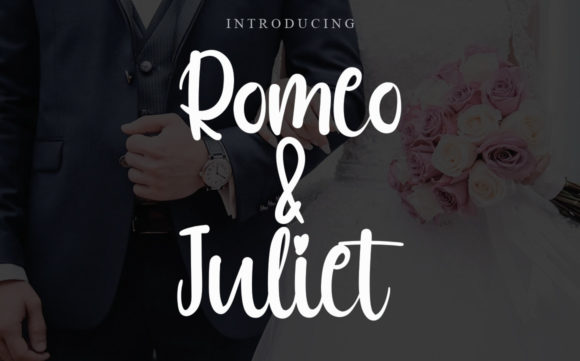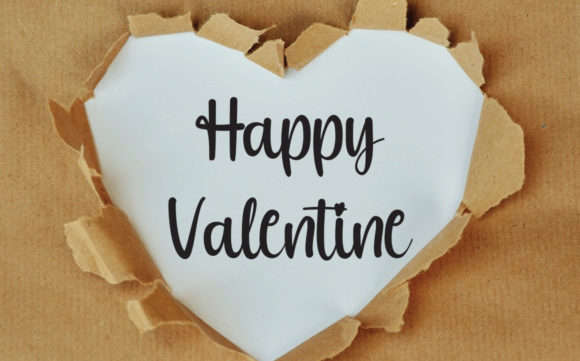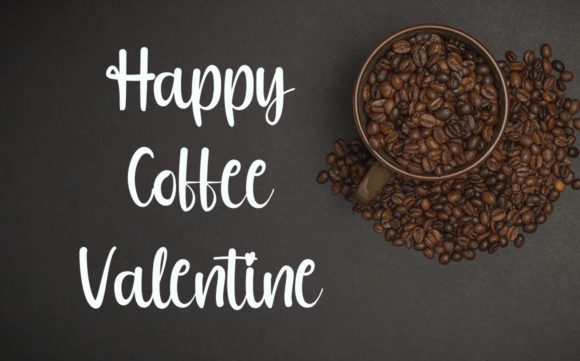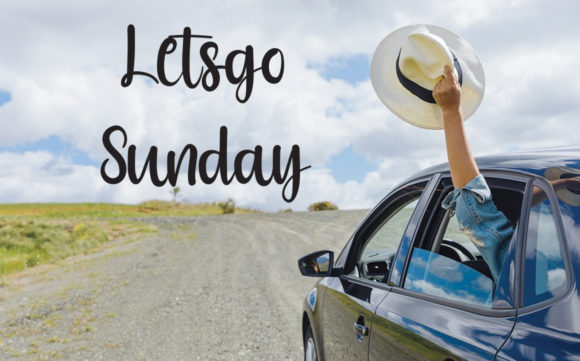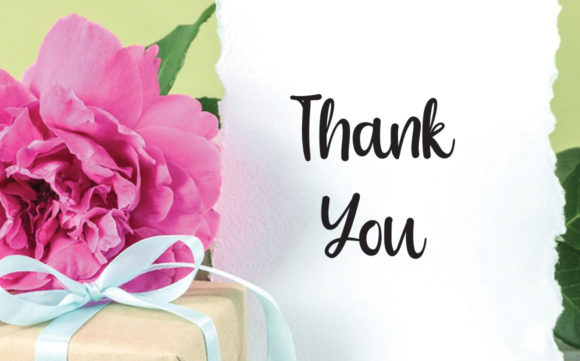
Romeo & Juliet Font
About Romeo & Juliet Font
Romeo & Juliet is a sweet and romantic handwritten font featuring a delicate flow. Use it for wall displays, wedding invitations, social media post logos, and any project that requires impressive typography.